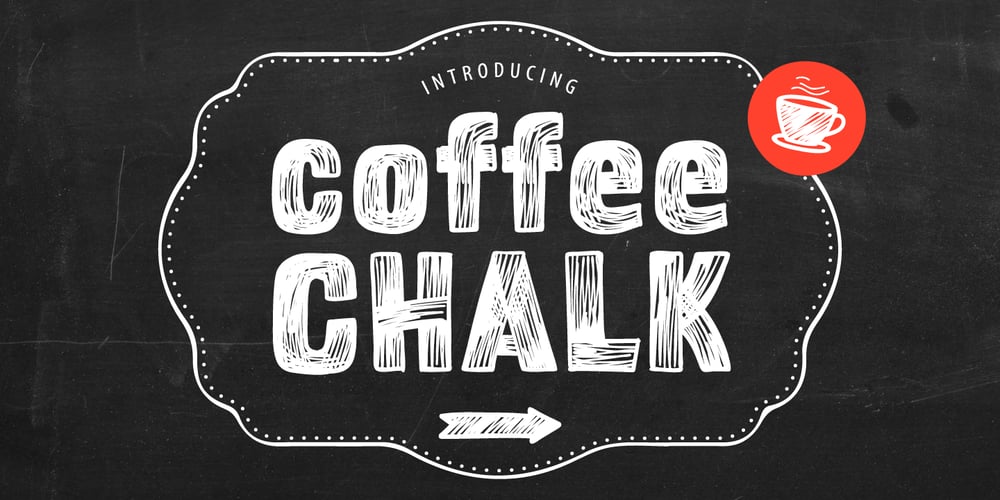
Coffee Chalk
Coffee Chalk font
Coffee Chalk Font Family was designed by Roman Korolev and published by Kaer. Coffee Chalk contains 1 styles and family package options. Hey Guys! I’m happy to present my new typeface hand-drawn by chalk on a blackboard. This font is perfect for a school signboard, advertising of a coffee shop, retro logos, handwritten posters, bar identity, etc.What’s included?* Uppercase and lowercase* Multilingual support* Numbers* Symbols* PunctuationI hope you enjoy this font. Follow my shop to receive updates of products and the very hottest news! If you have any question or issue, please contact me: kaer.pro@gmail.comThank you!